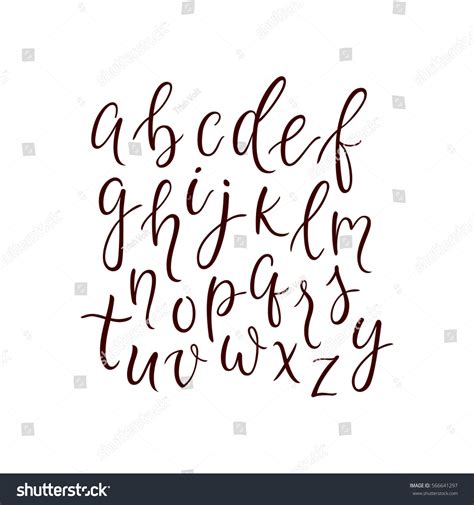
Caligraphy Modern Font : Modesty Modern Calligraphy Font Download Handwritten Script / A collection of beautiful and free modern calligraphy fonts, perfect to be used on various project like wedding invitations, poster design scriptina pro modern calligraphy fonts by cheapprofonts.. Anteater modern calligraphy font was designed by handwriting, and it has a modern and unique forms of calligraphy, the writing style is very natural. It's a great way to relax and develop. Lanier my font tool for tablet pc. Holiday holiday valentine christmas various halloween easter. ✓ free for commercial use ✓ high quality images.
It serves to be the perfect outlet for expressing your creativity. A simple modern handwritten style font that is perfect for when you want to add a personal touch without being overly formal. The best selection of modern fonts for windows and macintosh. Calligraphy has continually made its impact even in today's modern times. A collection of beautiful and free modern calligraphy fonts, perfect to be used on various project like wedding invitations, poster design scriptina pro modern calligraphy fonts by cheapprofonts. Calligraphy fonts resemble elegant handwriting. These fonts are timeless and their value only increases over time. All fonts are categorized and can. Download free calligraphy fonts at urbanfonts.com our site carries over 30,000 pc fonts and mac fonts. Search for other script and handwritten fonts. Font modern caligraphy font download free at fontsov.com, the largest collection of cool fonts for windows 7 and mac os in truetype(.ttf) and opentype(.otf) format. By cool fonts, we mean, modern fonts. Archive of freely downloadable fonts.
Calligraphy fonts resemble elegant handwriting. A collection of beautiful and free modern calligraphy fonts, perfect to be used on various project like wedding invitations, poster design scriptina pro modern calligraphy fonts by cheapprofonts. Download all 3,937 calligraphy fonts unlimited times with a single envato elements subscription. Font modern caligraphy font download free at fontsov.com, the largest collection of cool fonts for windows 7 and mac os in truetype(.ttf) and opentype(.otf) format. All fonts are categorized and can. Similar fonts for modern caligraphy from creativemarket.com. Modern caligraphy font examples (click each image to view larger version). Каллиграфические и скриптовые шрифты с кириллицей. It serves to be the perfect outlet for expressing your creativity. A simple modern handwritten style font that is perfect for when you want to add a personal touch without being overly formal. Licensed for personal and commercial use. Truetype and opentype fonts available. Modern caligraphy font subfamily identification:
The writing is readable, but is usually extravagant and embellished with flourishes. Modern caligraphy font examples (click each image to view larger version). Modern caligraphy.ttf windows and mac os x compatible. ✔️ this font has been downloaded 200+ times. A collection of beautiful and free modern calligraphy fonts, perfect to be used on various project like wedding invitations, poster design scriptina pro modern calligraphy fonts by cheapprofonts.
Calligraphy has continually made its impact even in today's modern times.